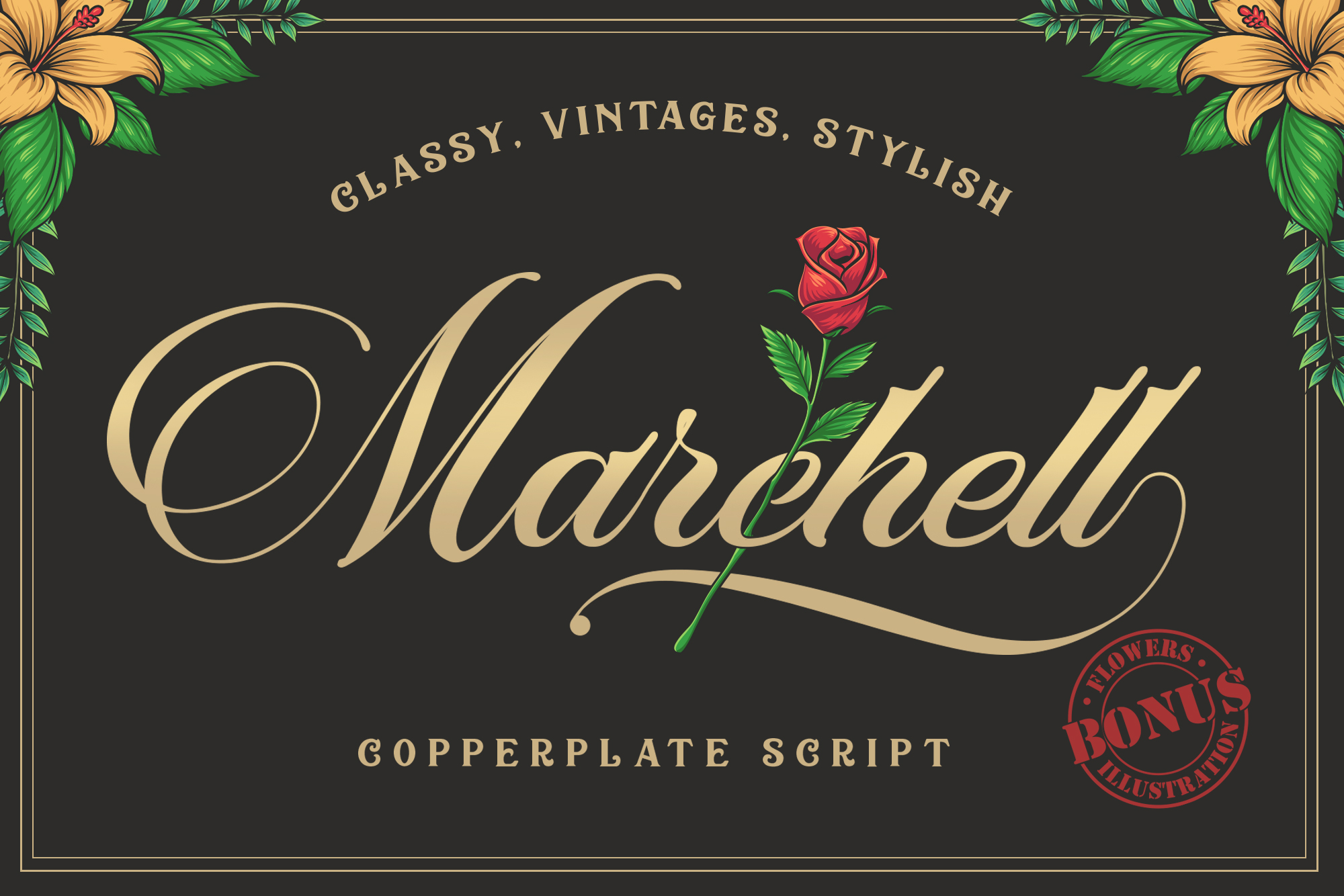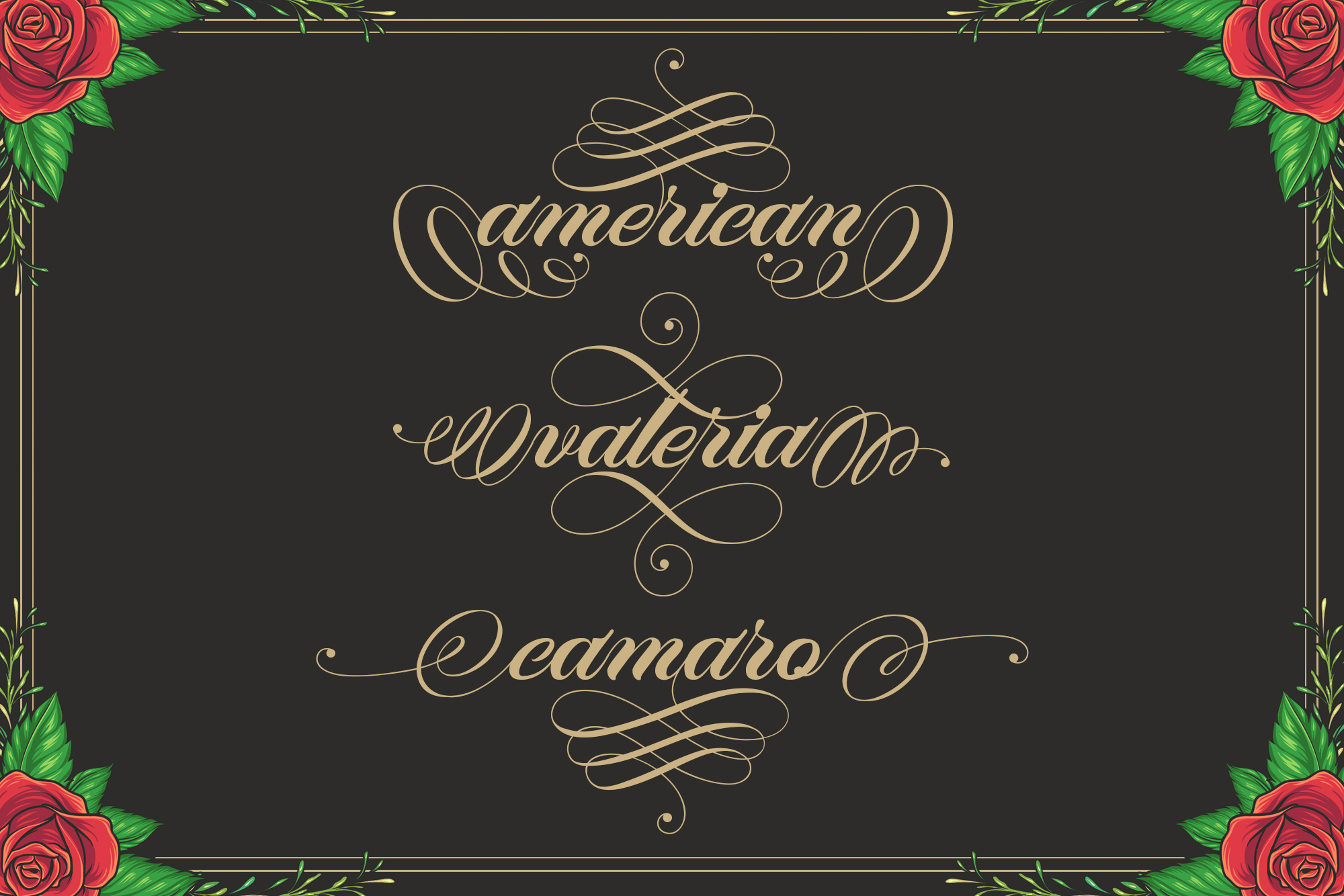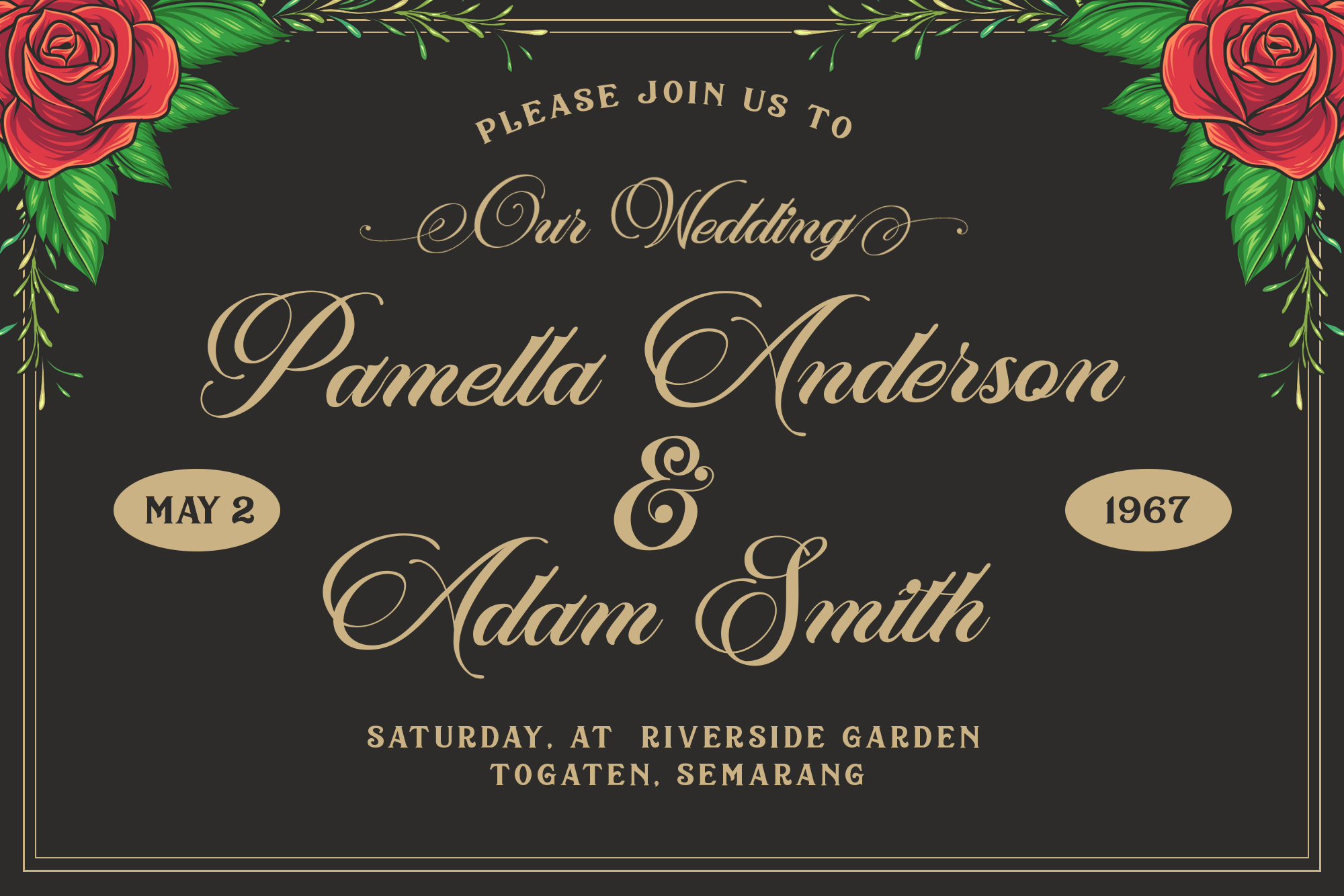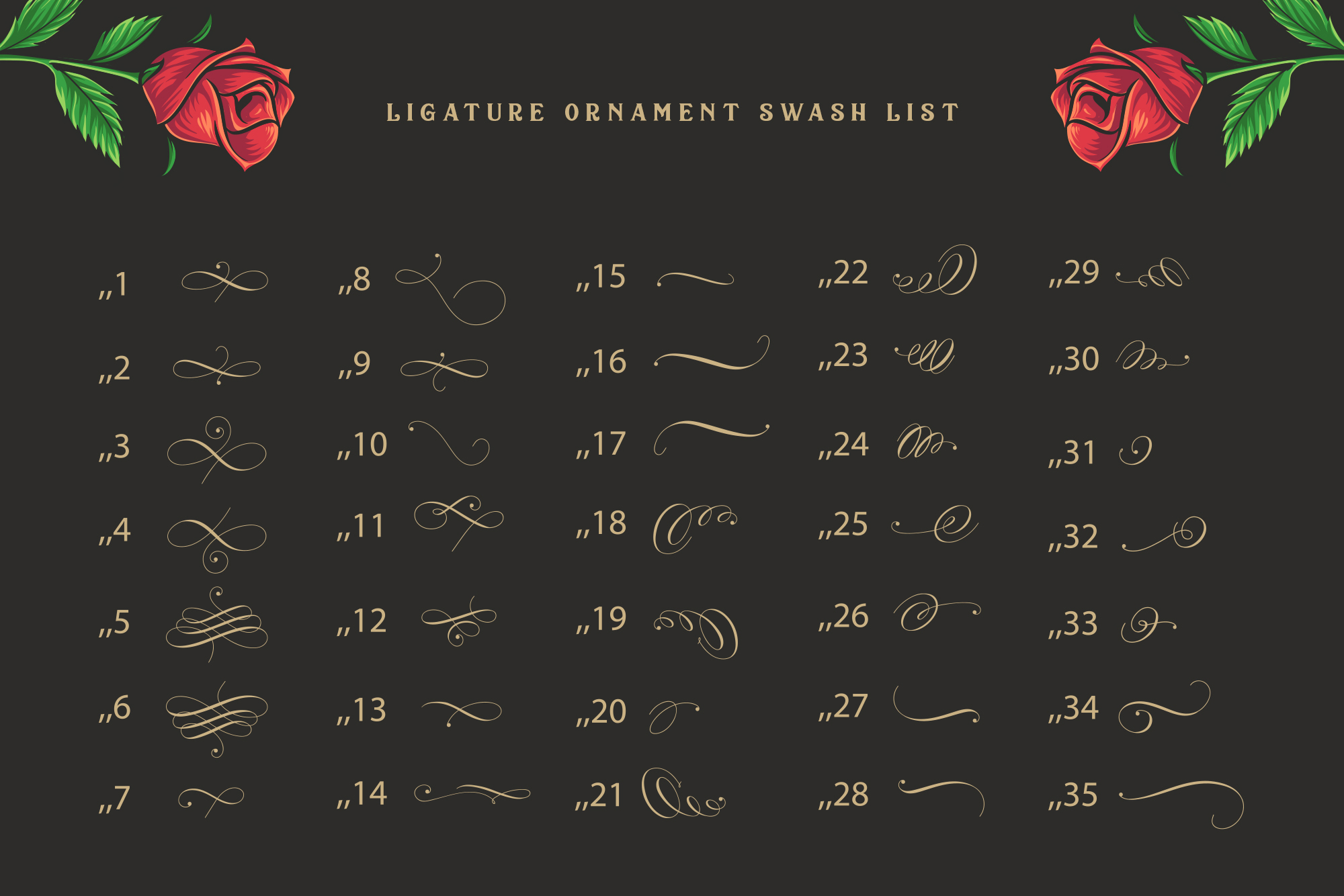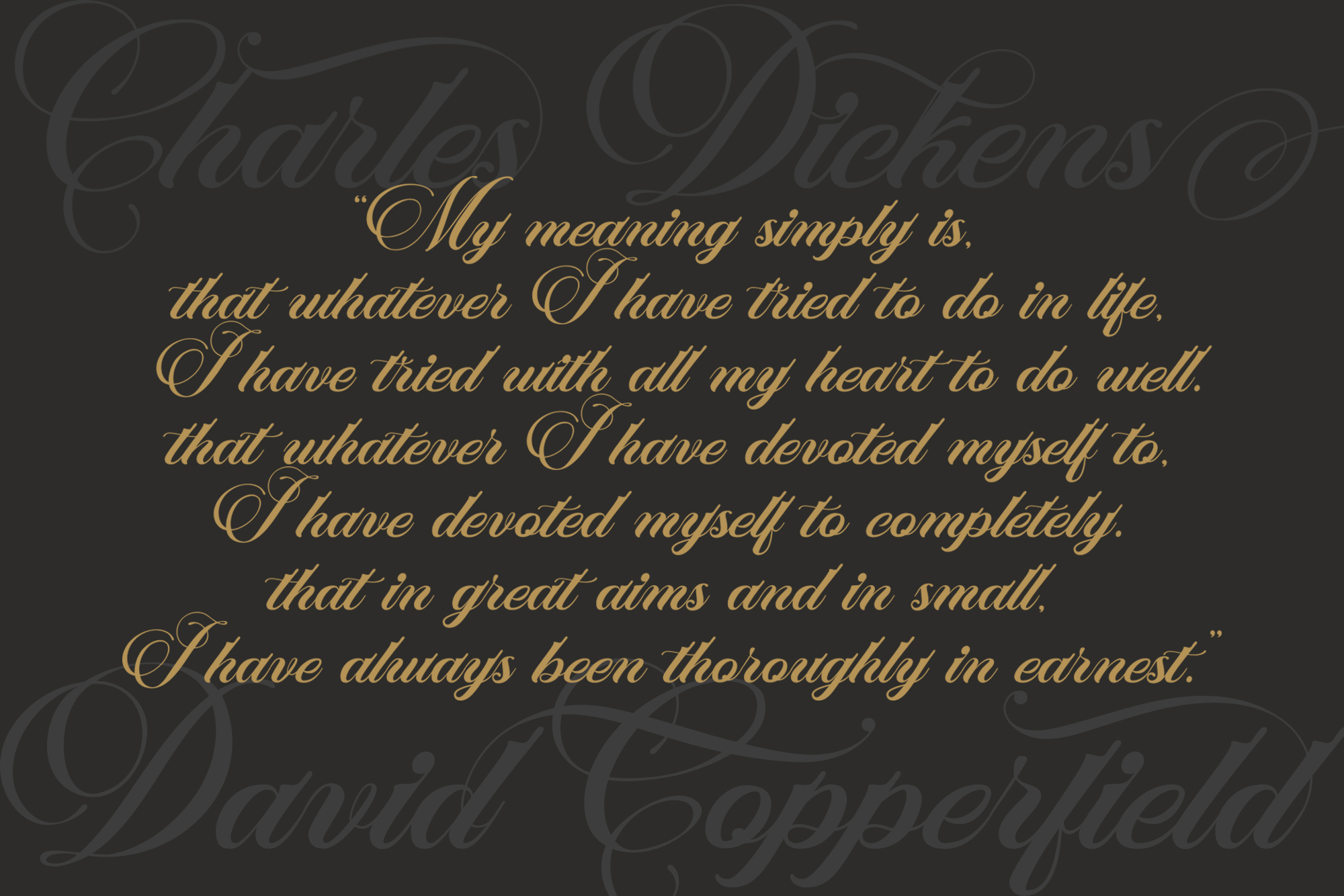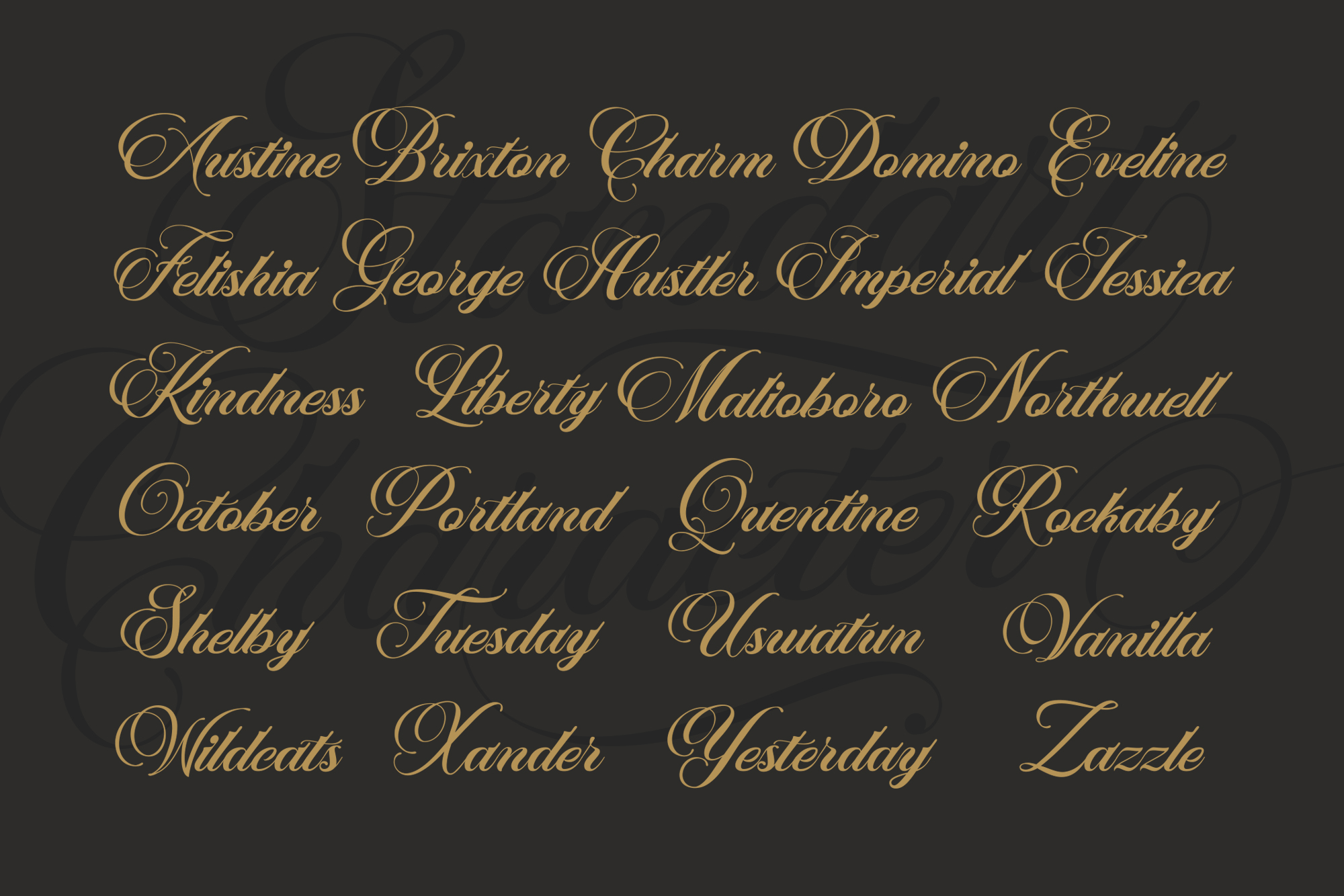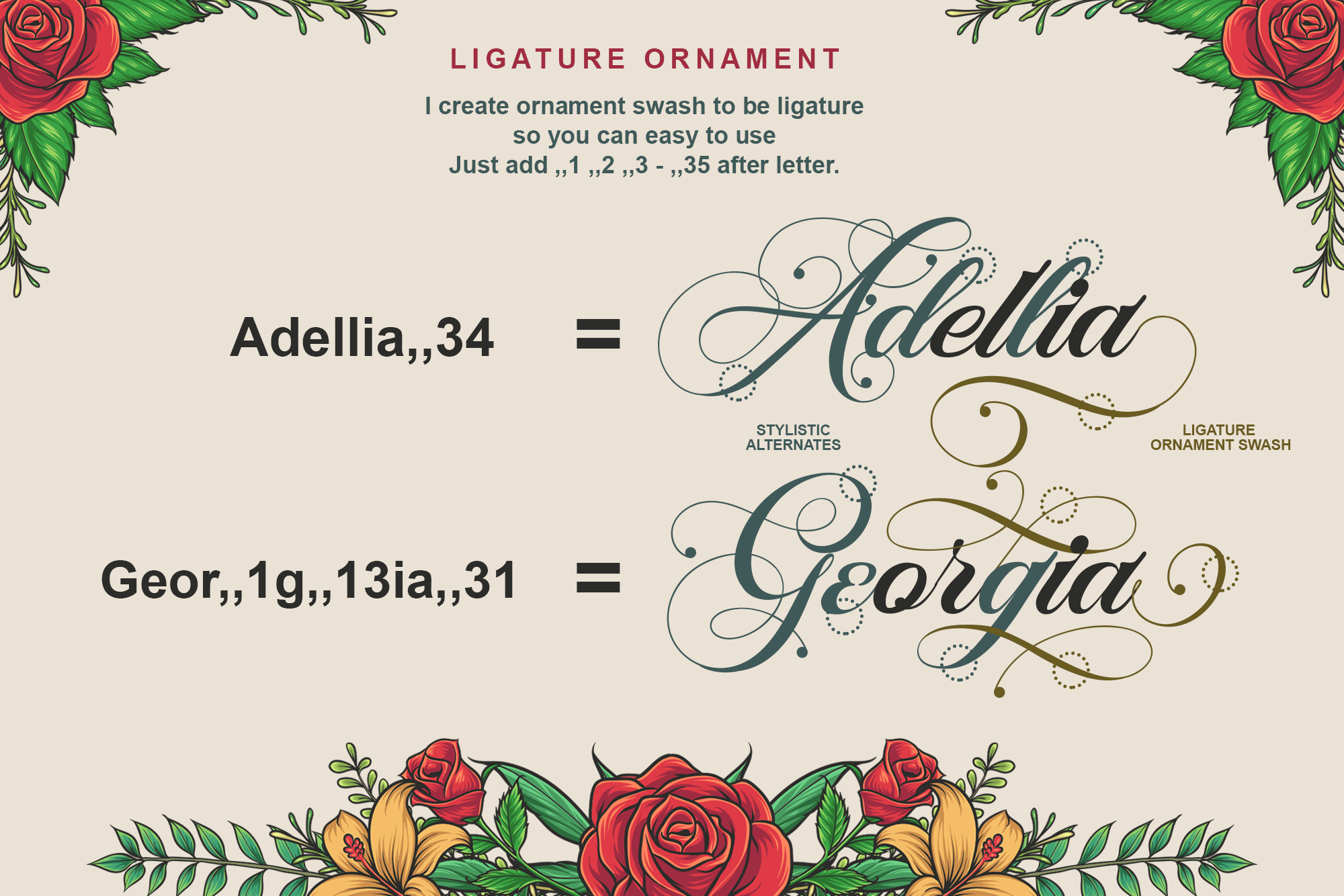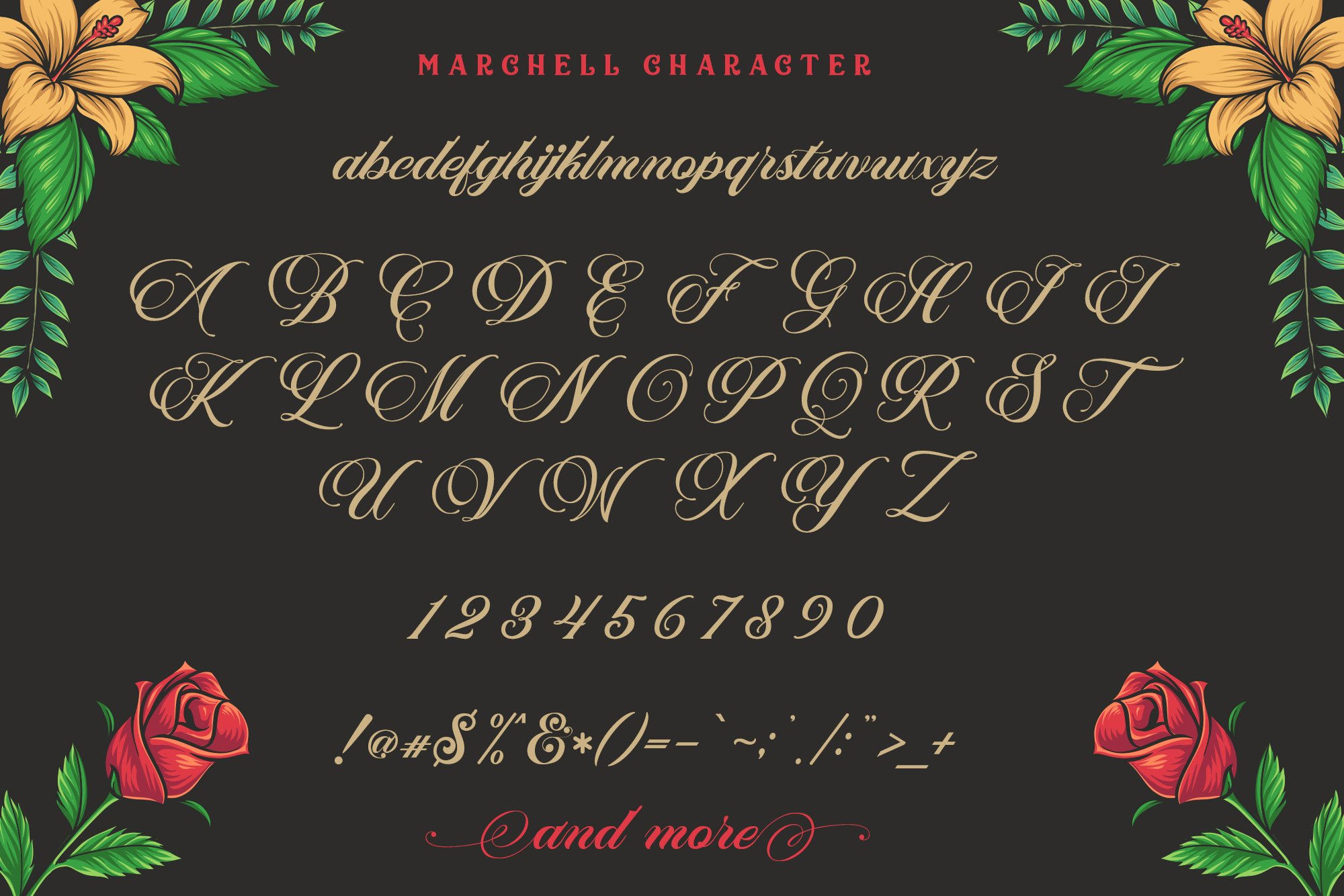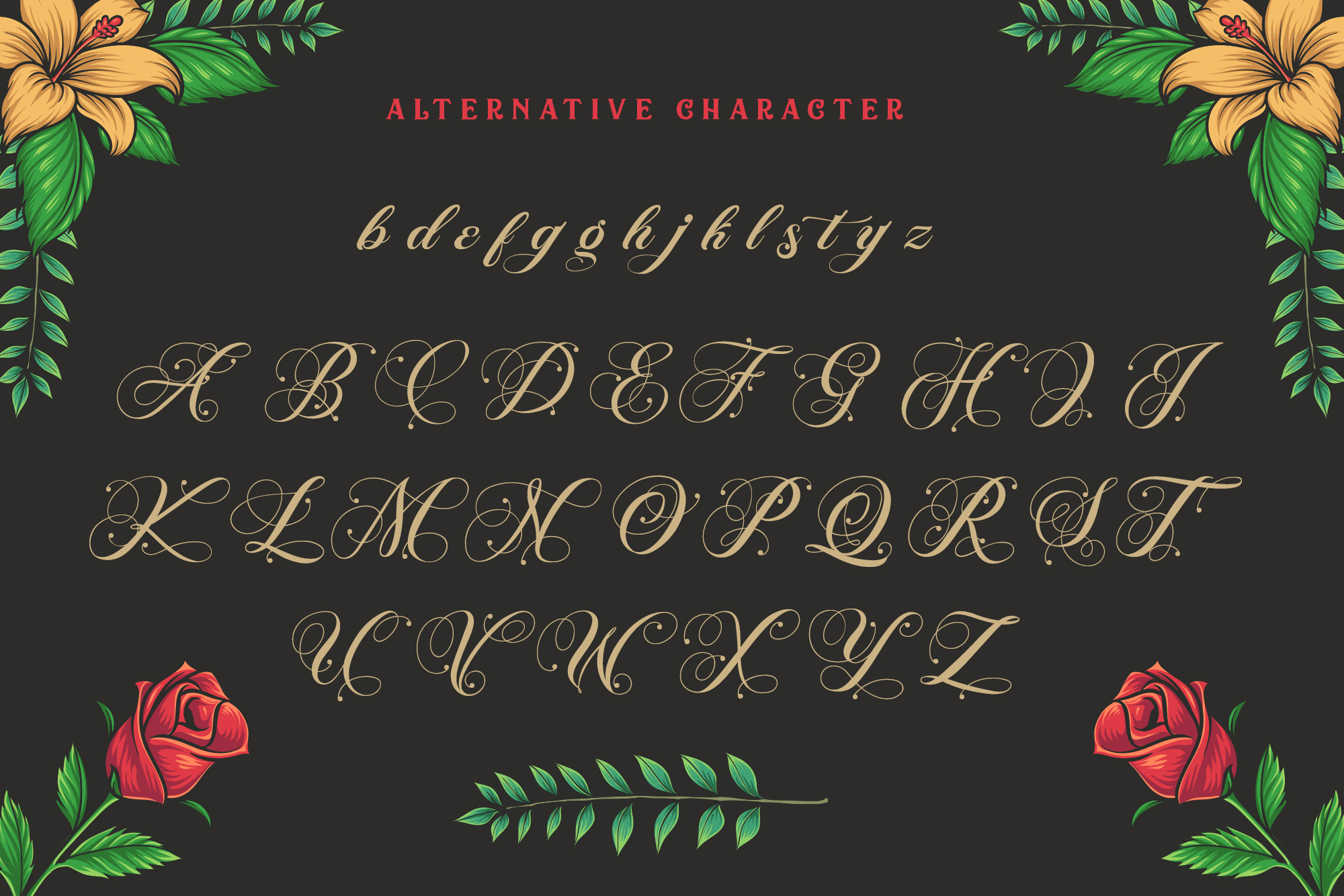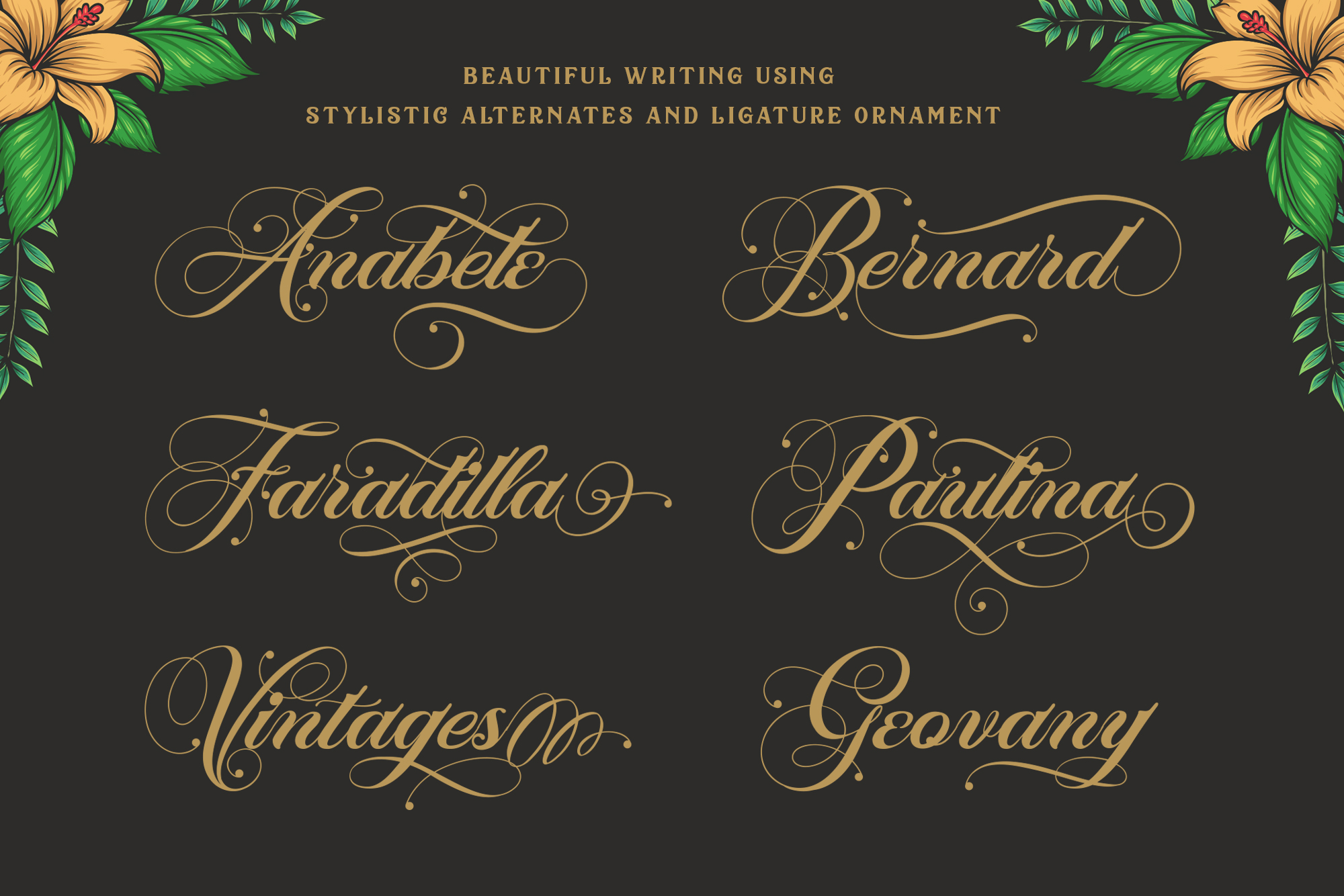
Marchell Font
About Marchell Font
Marchell is a stunning script font that looks classic, vintage and nostalgic but not dated. This luxurious font is highly decorative and can be used to easily add elegance to your designs.